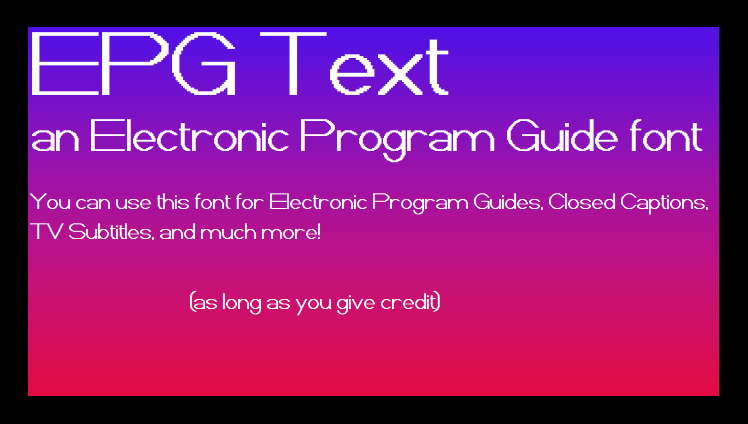
HolmesTheGreat — EPG Text (My Custom Font)
This is my first font submitted on DeviantArt. You can use it for Electronic Program Guides, Closed Captions, TV Subtitles, and much more!